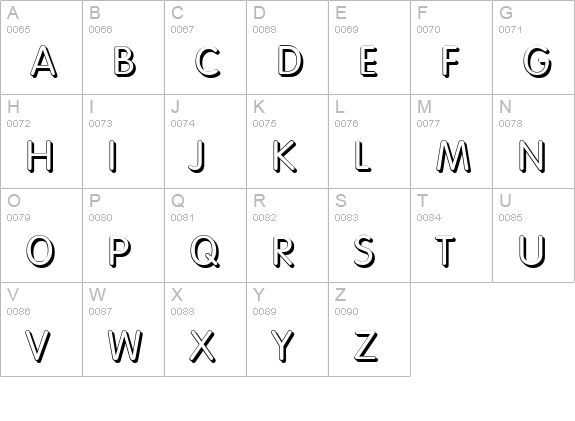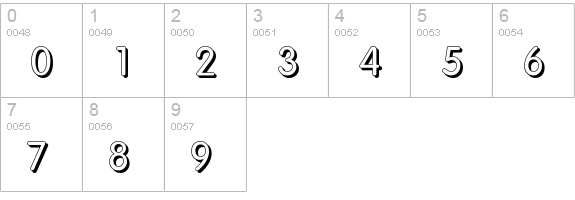
VolkswagenShadow-Regular Font Details
VolkswagenShadow-Regular is the standard, neutral variant in the VolkswagenShadow typeface family \xE2\x80\x94 well suited to general body text, paragraphs, and standard typographic work.
VolkswagenShadow-Regular font is a sleek and modern typeface that exudes sophistication and style. Its sharp edges and clean lines make it perfect for a wide range of design projects, from logos to posters to websites. The font's unique shadow effect adds depth and dimension, making your text stand out in a subtle yet impactful way. And the best part? VolkswagenShadow-Regular font is completely free to download at FontsMarket.com! This means you can elevate your designs without breaking the bank. So why wait? Add VolkswagenShadow-Regular font to your collection today and take your projects to the next level.